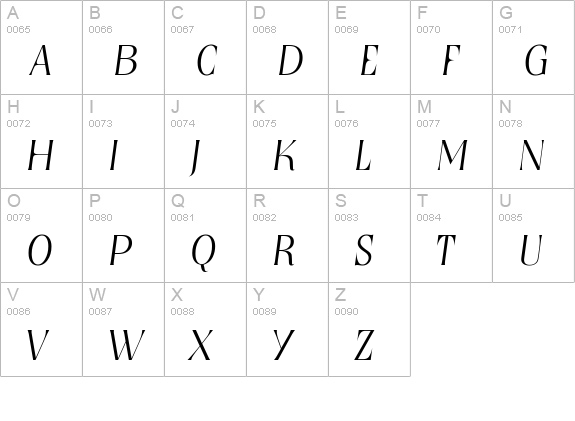
NashvilleSerial-Xlight-Italic is a distinctive, italic variant in the NashvilleSerial typeface family \xE2\x80\x94 well suited to design and typography projects.
NashvilleSerial-Xlight-Italic font is a sleek and modern typeface that exudes elegance and sophistication. Its delicate, italicized design adds a touch of refinement to any project, making it perfect for use in branding, advertising, and editorial design. The slender strokes and subtle curves of this font create a sense of grace and style, making it a versatile choice for a wide range of applications. What sets NashvilleSerial-Xlight-Italic font apart is not only its aesthetic appeal but also its accessibility. This stunning typeface is available for free download at FontsMarket.com, allowing designers and creatives to easily access and incorporate it into their work without any cost. Whether you're working on a personal project or a professional campaign, NashvilleSerial-Xlight-Italic font is sure to elevate your design with its timeless charm and effortless beauty.